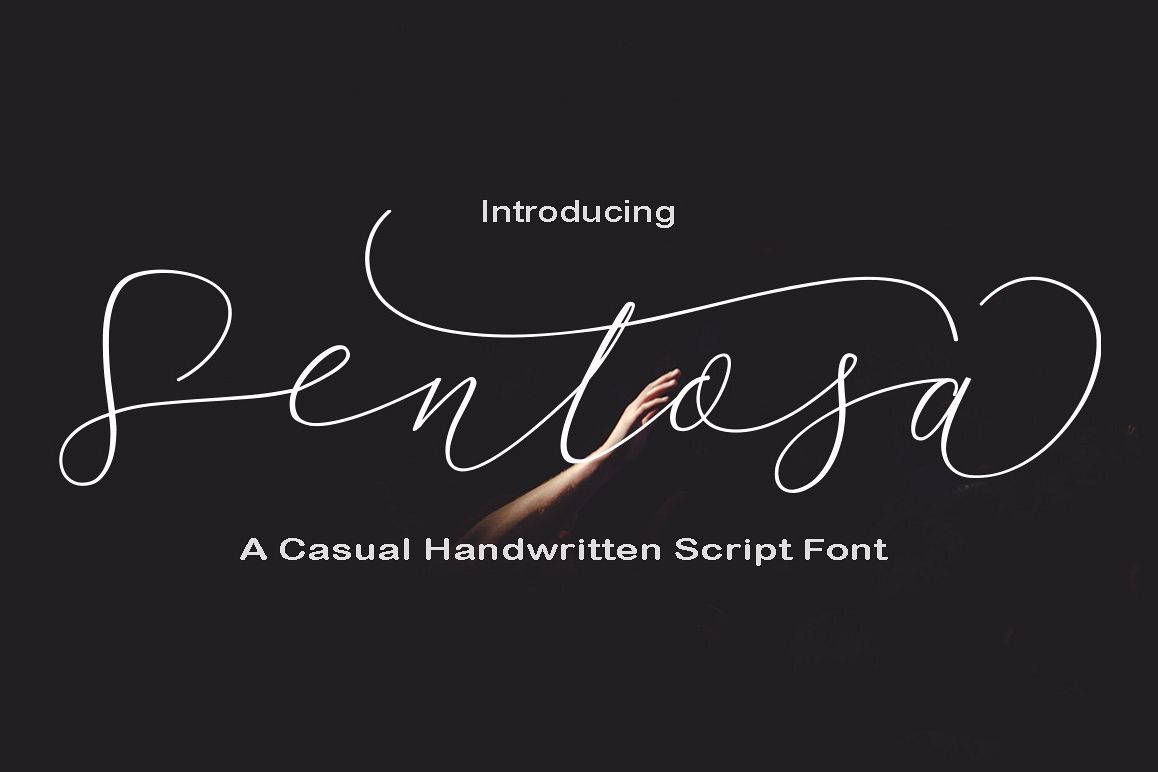
Sentosa Script
Sentosa
Introducing:
Sentosa a font work that is purely handwritten, has its own characteristics with the style of monoline. this is perfect for invitations, signatures, blogs, social media, business cards, product brands.
Sentosa has Stylistic standard, Stylistic Alternate, Stylistic Sets and ligatures. and includes uppercase and lowercase letters, numbers and punctuation marks.